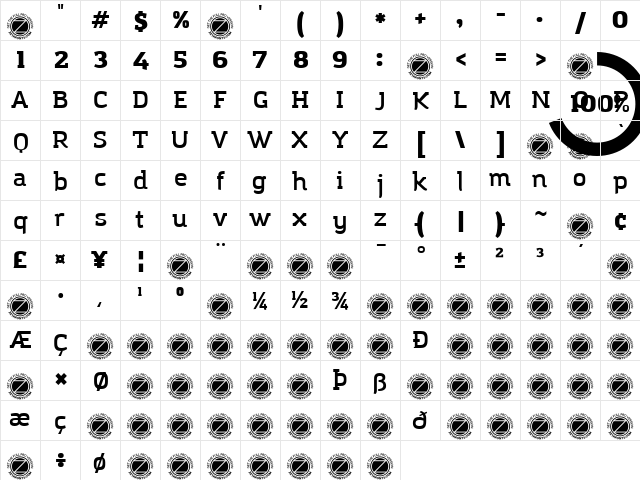
Amazing Infographic@ Regular
| Foundry | Studio Kmzero |
| Designer | Cosimo Lorenzo Pancini and Francesco Canovaro |
Design Context for Amazing Infographic@ Typeface
Amazing Infographic@ is a composed and adaptable typeface that performs quietly and consistently across a wide range of design contexts.
Pro Tip: Pair Amazing Infographic@ with a font of contrasting weight or personality to build a more expressive typographic hierarchy.